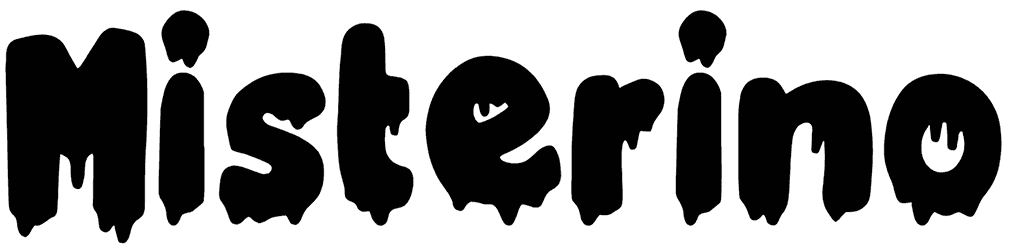
Misterino Font
The bold and powerful Misterino font draws attention and is a great choice when you need to create text that cannot be ignored. This dripping font is sure to add an amazing element to logos, gaming channels, and greeting cards.
So whenever you want to create a sense of dissonance, choose this horror font or visit the RB library to send shivers down your audience’s spine.